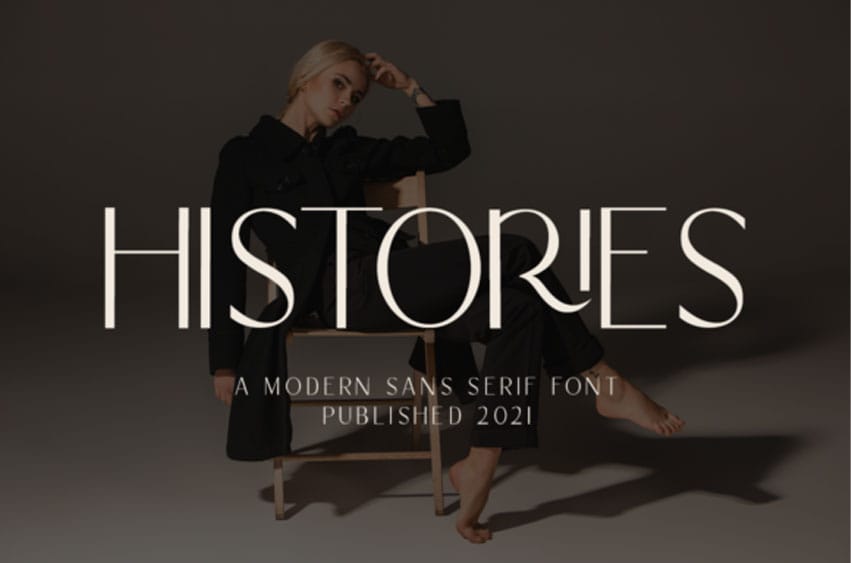
Histories Font is a modern, sans serif font.
It can easily be matched to an incredibly large set of projects, so add it to your creative ideas and notice how it makes them stand out!